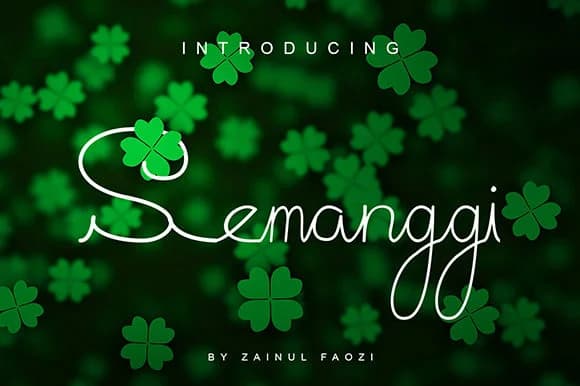
Semanggi Font, designed by Patuh Karya, captures the loose, expressive energy of hand-lettering without sacrificing legibility or control. The letterforms flow with genuine confidence, each stroke carrying that raw, sketch-like quality that feels both deeply personal and refined enough for serious professional work across various mediums and applications. What makes this script special is how it balances warmth with readability, working confidently across multiple contexts instead of functioning as pure decorative flourish or novelty typeface.
This font excels for intimate stationery pieces like wedding invitation suites, where the handwritten character signals genuine care and personal attention. You'll find it perfectly suited to greeting card designs, indie product labels for Etsy sellers, small-batch artisan packaging, and boutique skincare branding where visual personality matters far more than corporate uniformity. It's equally natural for DIY craft signage, custom labels for handmade goods, independent creative agency projects, and any work where human warmth communicates authenticity far more effectively than slick, mass-production polish.
Semanggi Font is a script font that shines as a display or heading face. Pair it with a clean sans-serif or serif font for body text β the contrast creates a clear hierarchy while the two styles stay balanced and easy to read.
Semanggi Font
by Patuh Karya